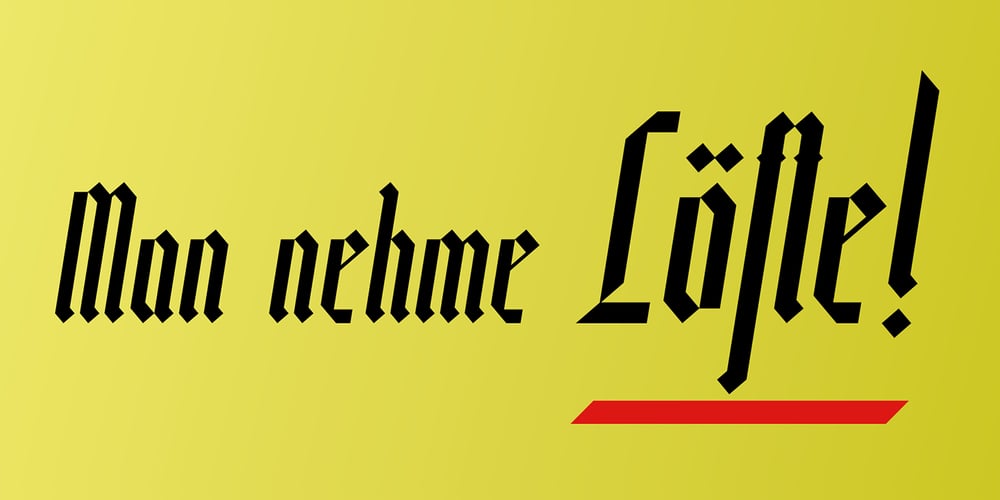
De Ruyter Font Family was designed by Daniel Kulacz and published by Trafotype. De Ruyter contains 2 styles and family package options. De Ruyter font was inspired by old and new. Old beautiful calligraphy and blackletter fonts used across the ages and new clean, simple sans-serif style fonts which may be use in many types of modern media. This typeface include 438 glyphs which cover 98% of Latin Plus languages and 94% of Latin Plus diacritics. De Ruyter include regular and italic version which will perfect works in any branding, logos, magazines, films projects, badges and headlines. The font is distributed in TrueType format including kerning.